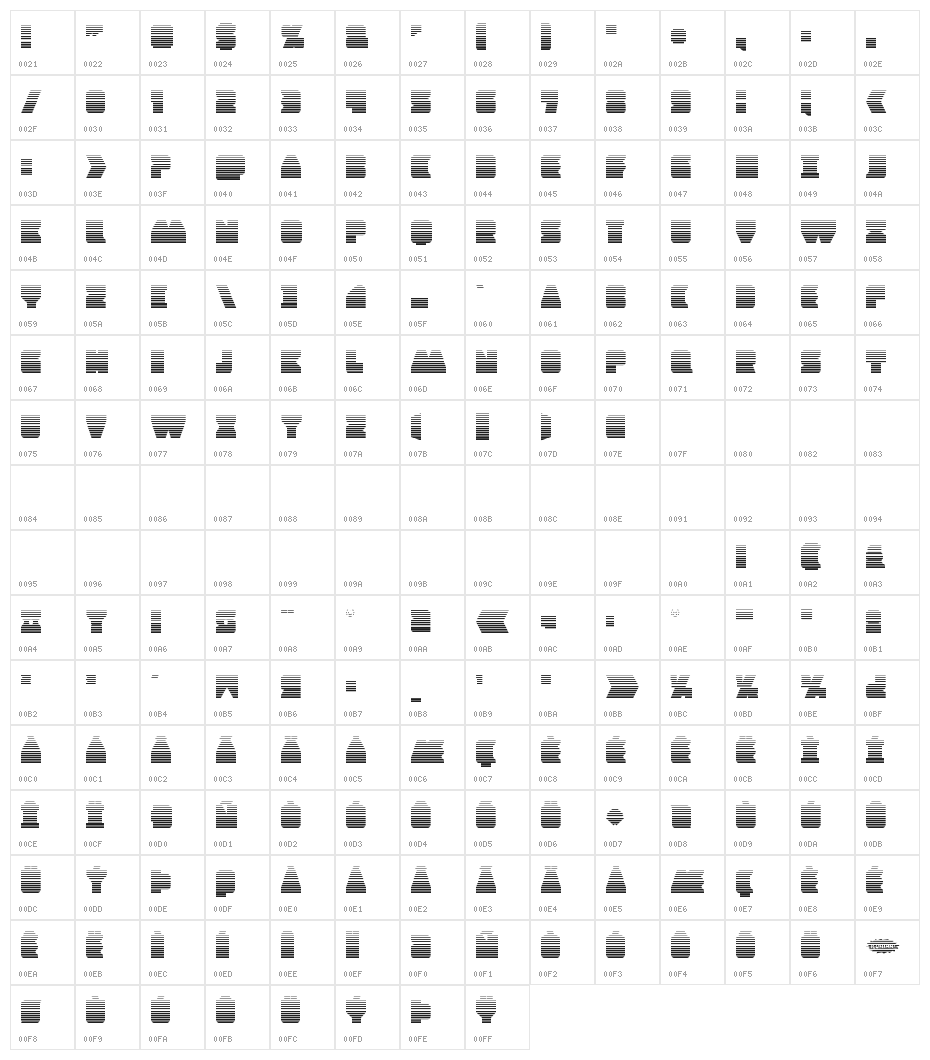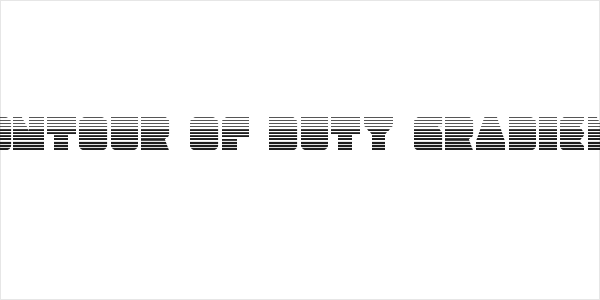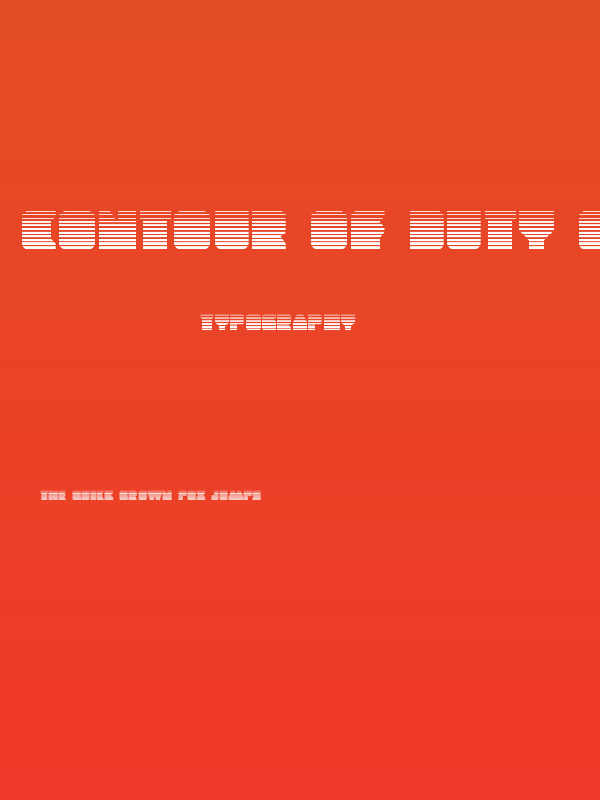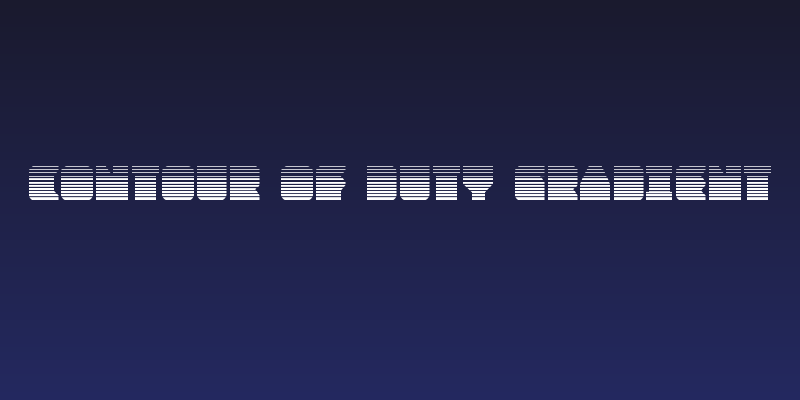
Contour of Duty Gradient Font
Contour of Duty Gradient Description
This font features a unique design with horizontal lines creating a gradient effect across each character. The bold, geometric shapes are filled with evenly spaced, parallel lines that give a sense of depth and movement. The uppercase and lowercase letters, as well as numbers and special characters, maintain a consistent style, emphasizing a modern and futuristic aesthetic. The font's distinct appearance makes it ideal for eye-catching designs where a strong visual impact is desired.
| Proposed Projects | Ideal for futuristic branding, tech-related posters, digital art projects, and innovative logo designs. |